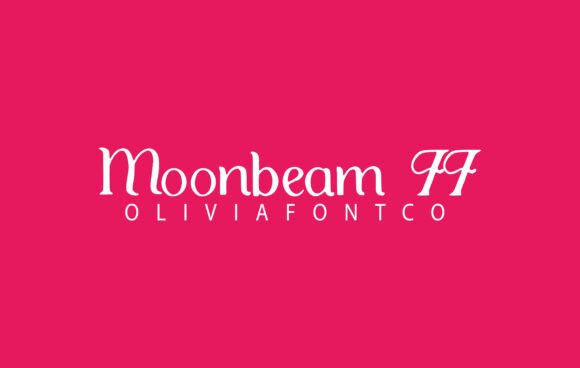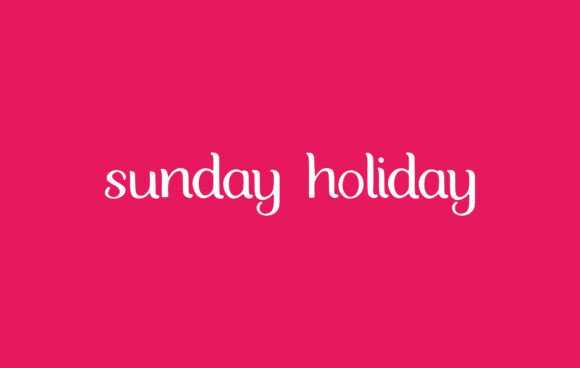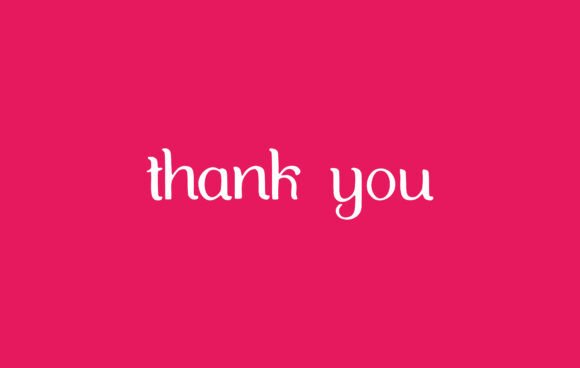
Moonbeam 77 Font: Romantic Handwritten Script for Wedding Font & Branding
About the Moonbeam 77 Font
The Moonbeam 77 Font is here to transform your projects with its distinctive character and style. Moonbeam 77 font is an authentic handwritten font with a romantic touch. Expertly designed to be a true favorite, this font has the potential to take your creative ideas to the highest level
Moonbeam 77 excels in applications requiring a touch of romantic charm, such as wedding invitations, stationery, or short-form social media content. Its elegant, handwritten style makes it ideal for headlines and short text blocks in branding materials. However, its legibility suffers in extended body text or UI contexts.
The font’s personality is best described as romantic and elegant, yet approachable. Avoid using it for lengthy paragraphs or interfaces where clear readability is paramount.
Pairing Moonbeam 77 with a clean sans-serif like Lato or a classic serif like Garamond will create a balanced and sophisticated look. For a more playful feel, consider pairing it with a slightly quirky script font.
Moonbeam 77 Font Usage Examples
Moonbeam 77 Font Example